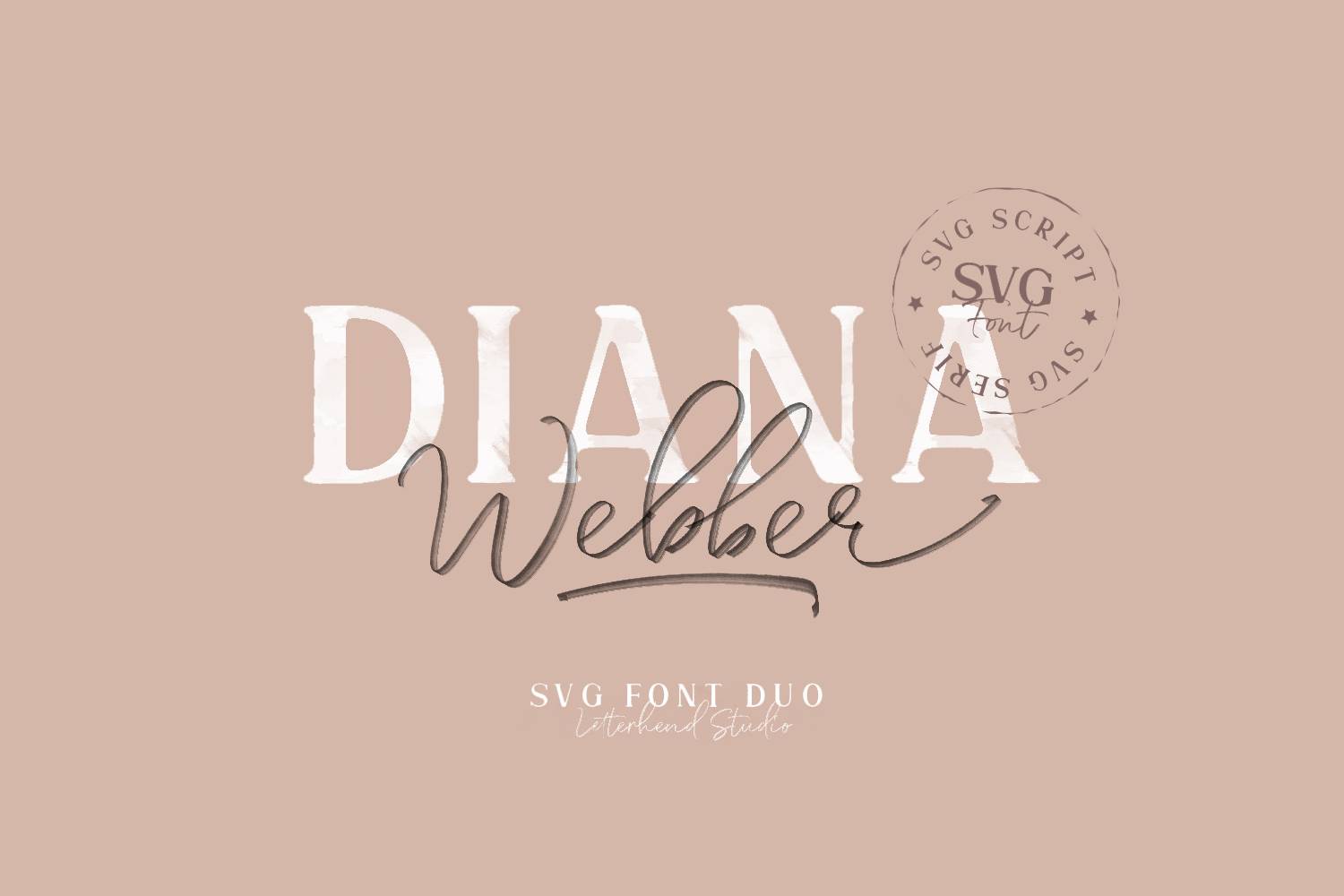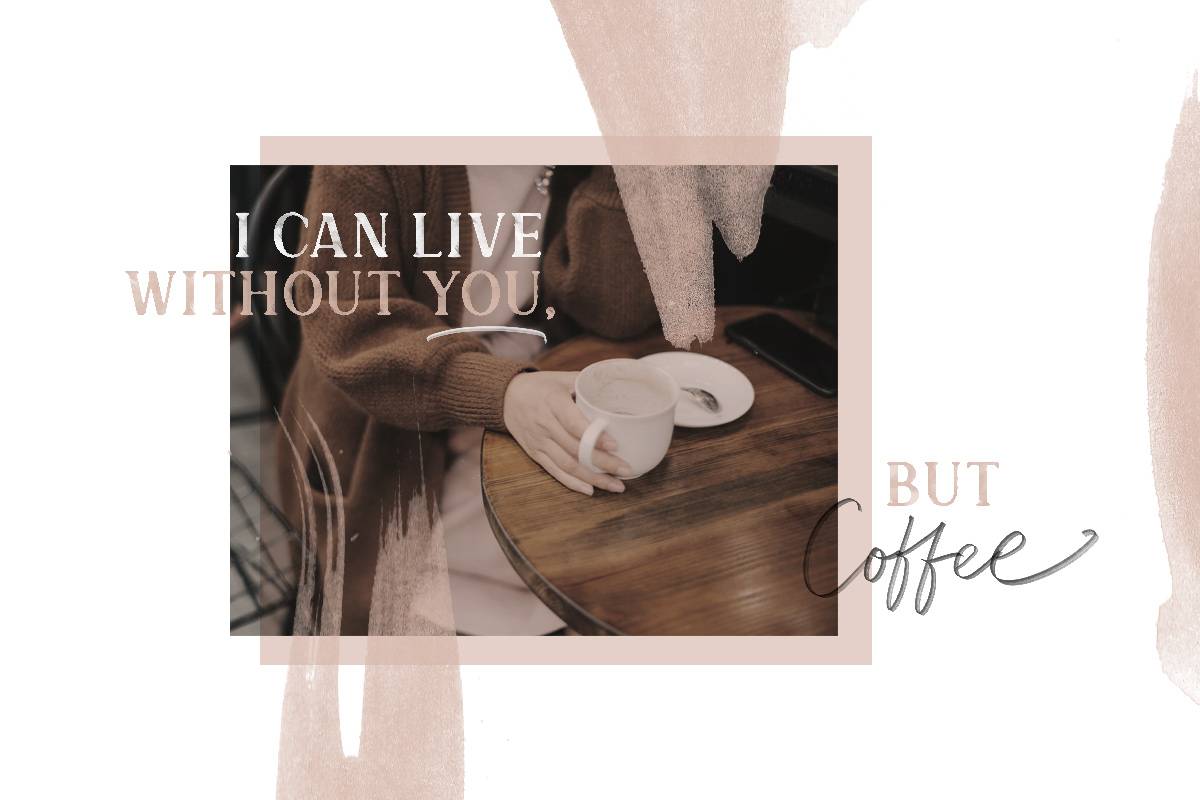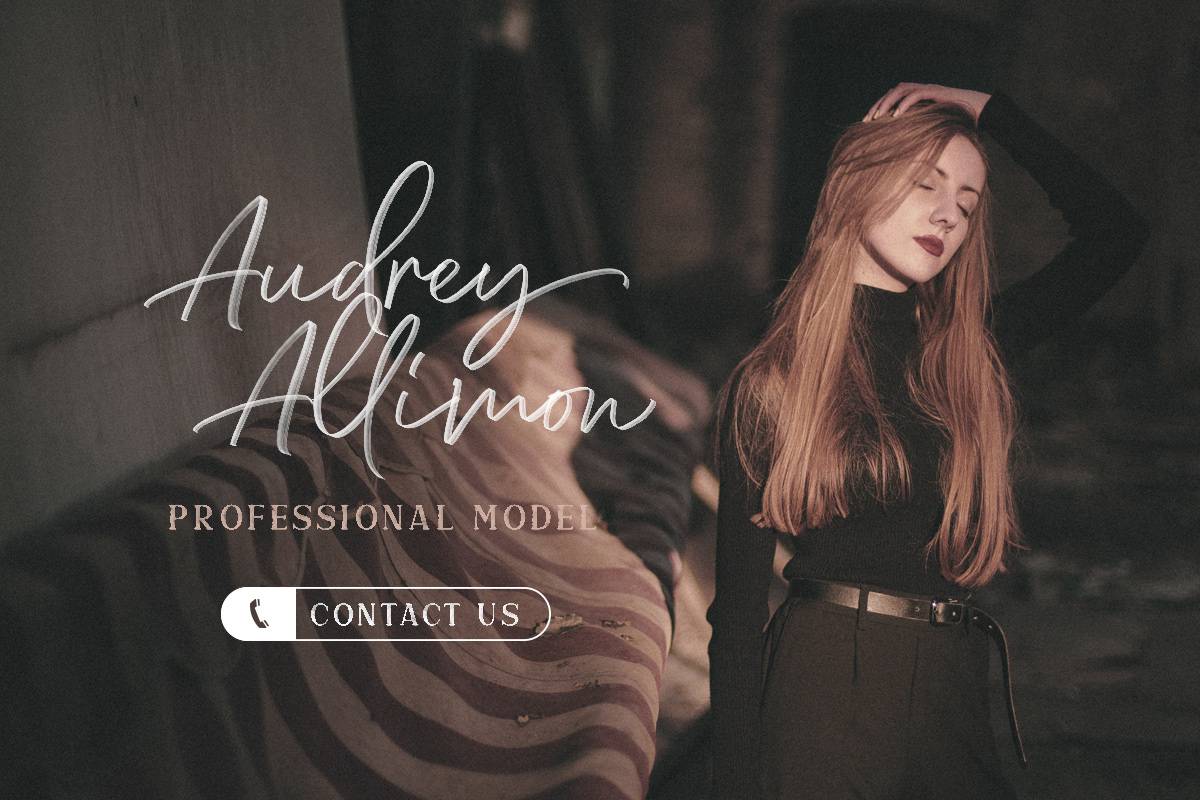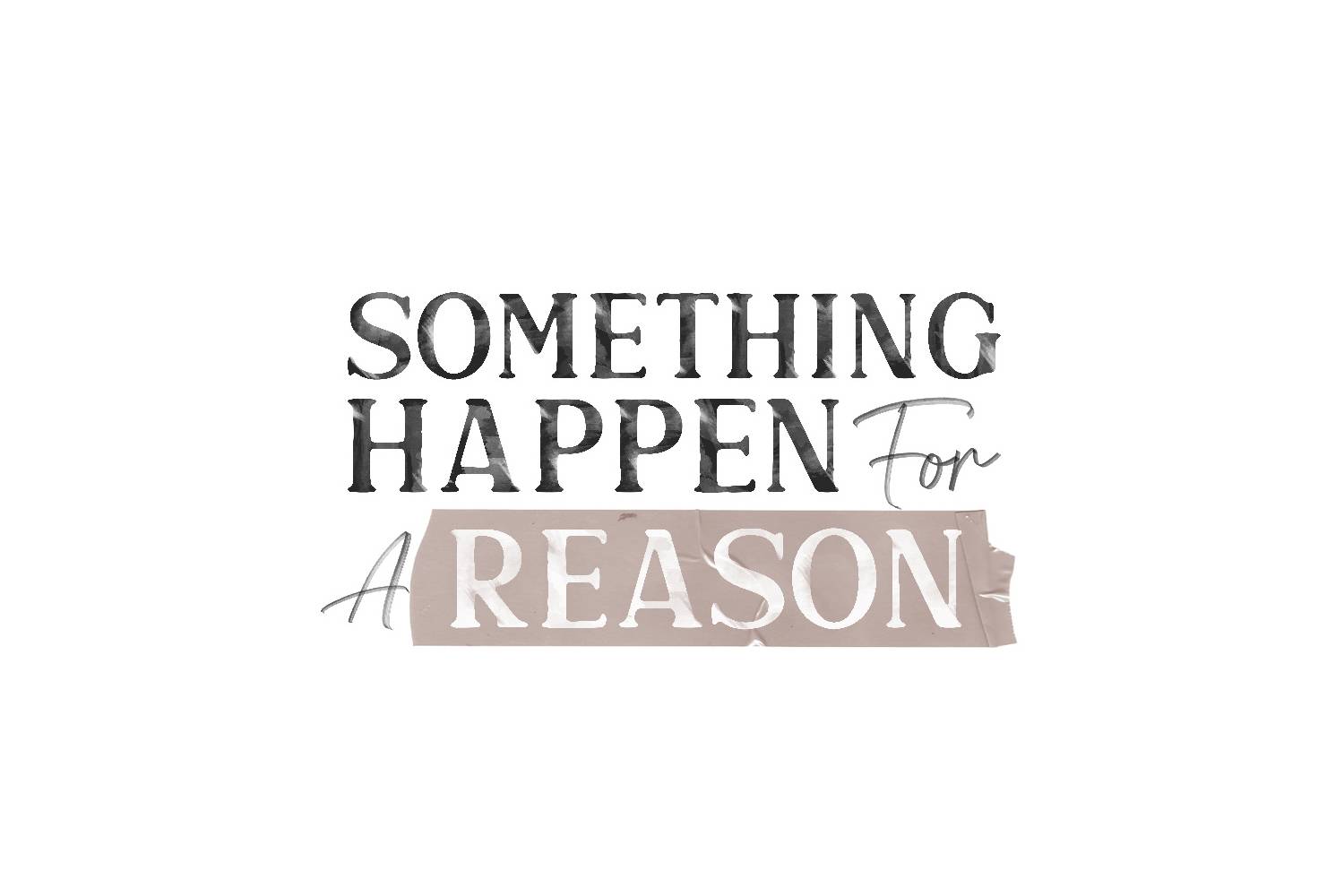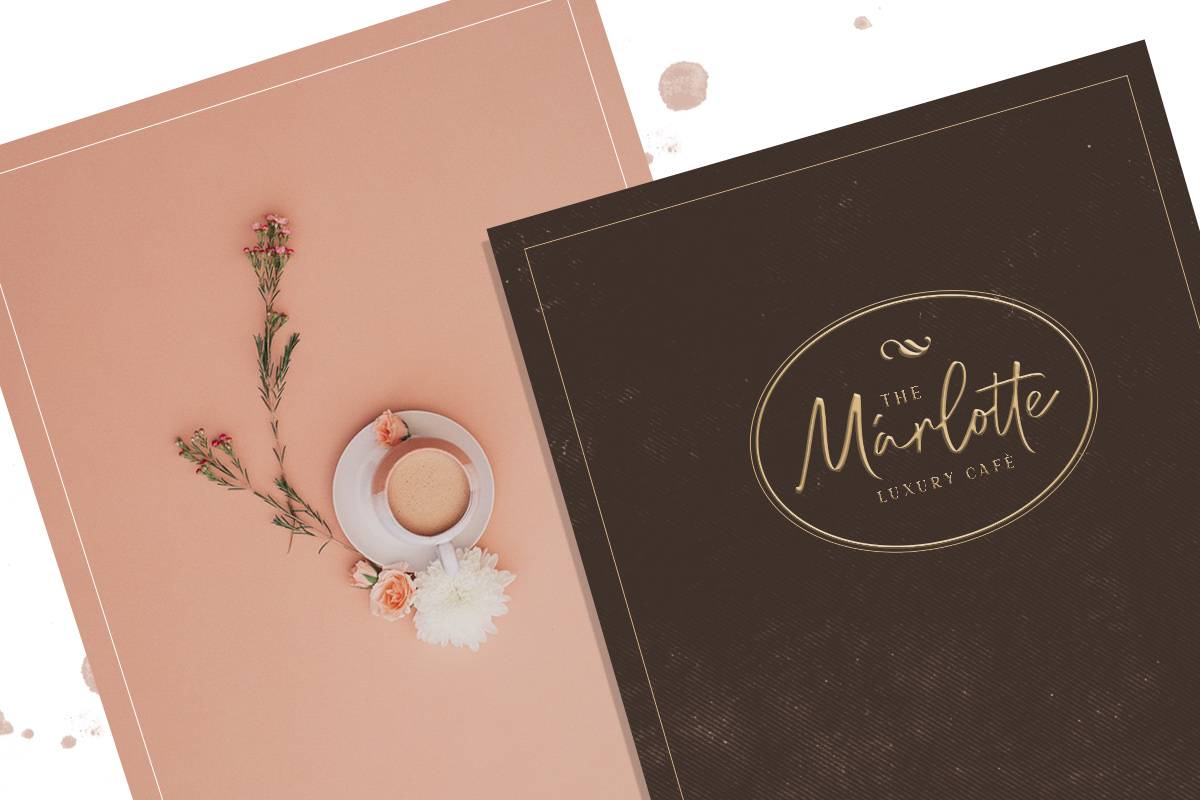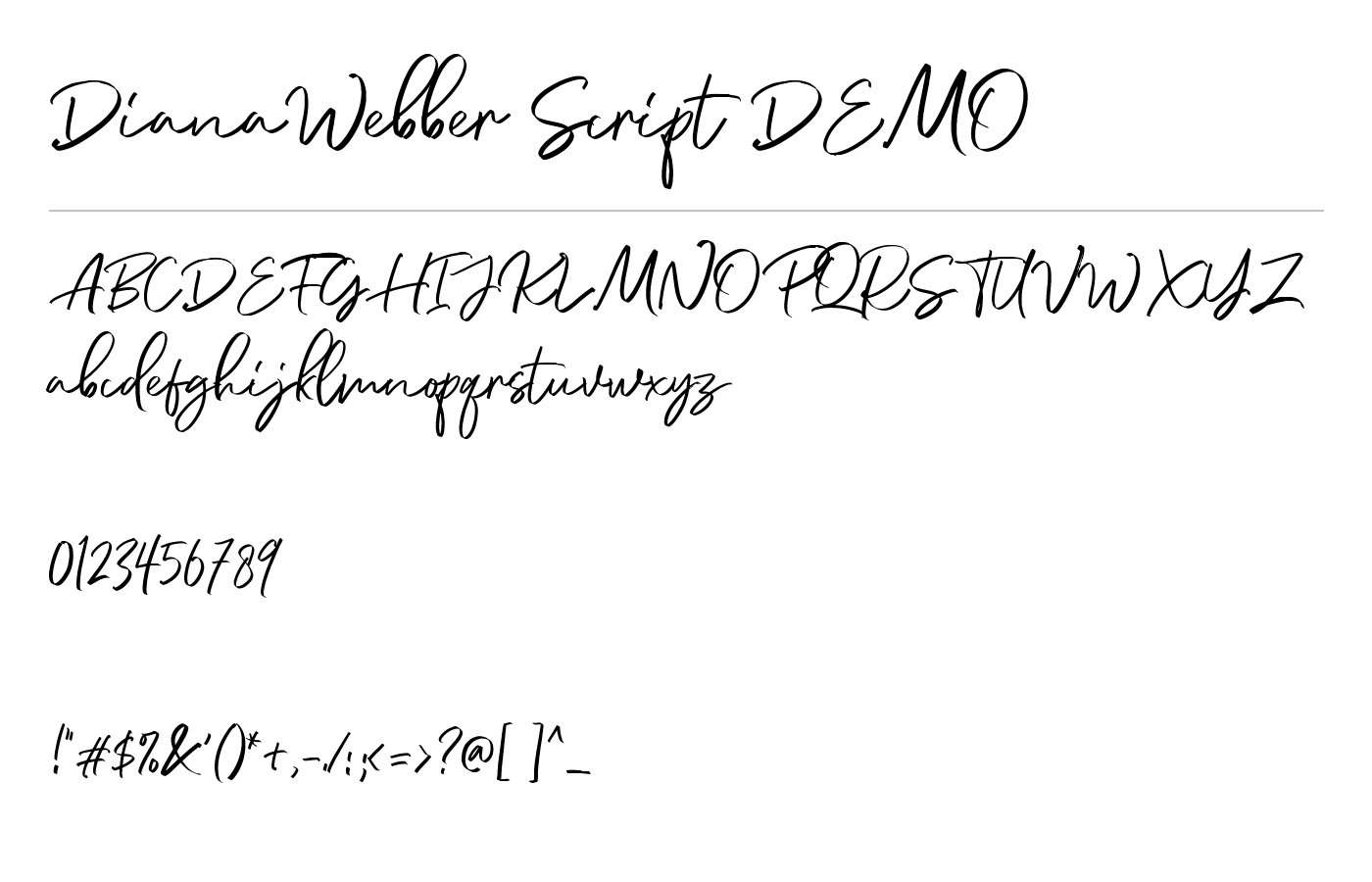
Diana Webber is a lively and elegant script font with a natural, hand-drawn feel that combines casual charm with refined stroke contrast. Its fluid, slightly slanted letterforms and varying stroke thicknesses make it perfect for adding a personal, creative touch to logos, invitations, and branding projects that seek warmth and sophistication. This font shines in applications where a friendly yet stylish handwritten look is desired.
Diana Webber Font
About Diana Webber Font
| Font family | Diana Webber Font |
| Release date | 2018-08-28 |
| Designer | Sarid Ezra |